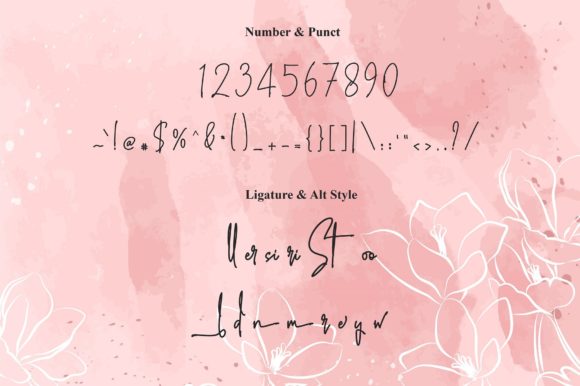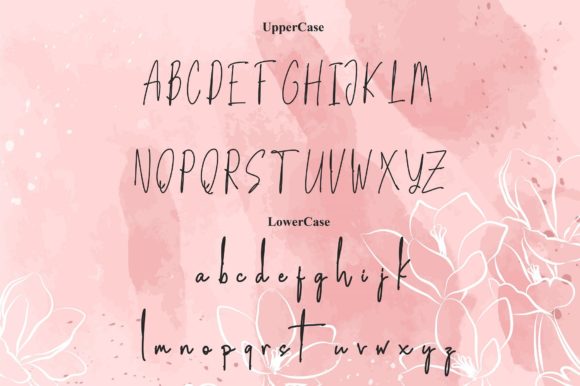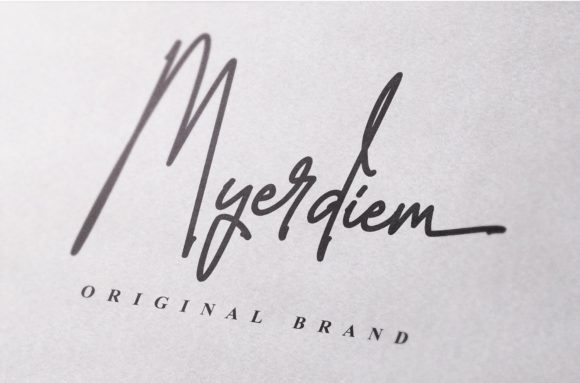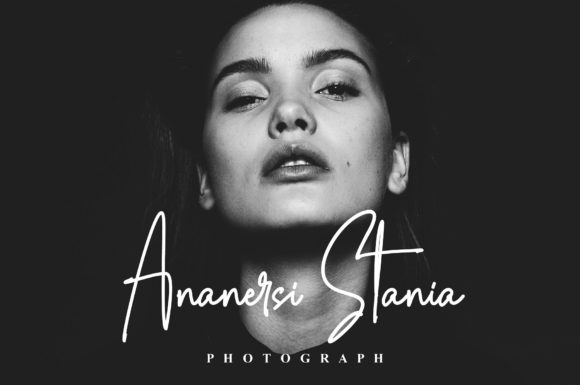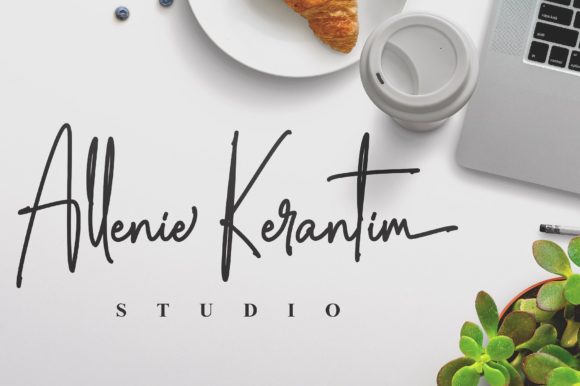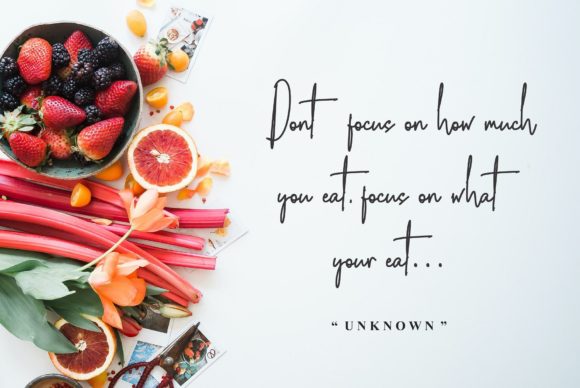
Introducing Amalia Country Font: Elevate Your Designs with Elegance
Are you a designer or crafter looking for a font that exudes sophistication and elegance? Look no further than Amalia Country Font, a beautiful script font that can add a touch of refinement to your designs. In this article, we’ll explore the features and benefits of Amalia Country Font, and show you how to make the most of this stunning font in your creative projects.
What is Amalia Country Font?
Amalia Country Font is an elegant script font designed to bring a touch of sophistication to your designs. With its flowing curves and refined lines, this font is perfect for creating beautiful logos, greeting cards, social media posts, and more. Whether you’re a professional designer or a crafty DIY enthusiast, Amalia Country Font is sure to impress.
Key Features of Amalia Country Font
- Elegant Script Style: Amalia Country Font features a beautiful script style that’s perfect for creating sophisticated designs.
- Highly Versatile: This font can be used for a wide range of design projects, from logos and greeting cards to social media posts and more.
- Easy to Read: Despite its elegant style, Amalia Country Font is highly legible, making it perfect for use in both digital and print designs.
- Scalable: This font is highly scalable, allowing you to use it in designs of all sizes, from business cards to billboards.
Benefits of Using Amalia Country Font
So why choose Amalia Country Font for your design projects? Here are just a few benefits of using this amazing font:
- Adds Sophistication: Amalia Country Font can add a touch of elegance and sophistication to your designs, making them stand out from the crowd.
- Versatile: This font can be used in a wide range of design projects, making it a great addition to your font library.
- High-Quality: This font is designed to high standards, ensuring that your designs look professional and polished.
How to Use Amalia Country Font in Your Designs
So how can you use Amalia Country Font in your designs? Here are a few ideas to get you started:
- Logos: Use Amalia Country Font to create beautiful, elegant logos for your business or brand.
- Greeting Cards: Add a touch of sophistication to your greeting cards with Amalia Country Font.
- Social Media Posts: Use this font to create eye-catching social media posts that stand out from the crowd.
- Invitations: Create beautiful, elegant invitations for weddings, parties, and other special events.
Tips for Getting the Most out of Amalia Country Font
Here are a few tips for getting the most out of Amalia Country Font:
- Experiment with Different Sizes: Don’t be afraid to experiment with different font sizes to find the perfect fit for your design.
- Pair with Other Fonts: Amalia Country Font pairs well with other fonts, so don’t be afraid to try pairing it with different fonts to create a unique look.
- Use in Combination with Images: Use Amalia Country Font in combination with images to create stunning, eye-catching designs.
| Font Name | Amalia Country Font |
| Author | MechaStudio |